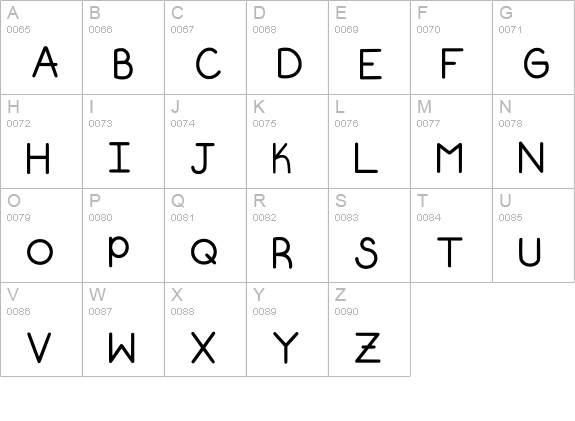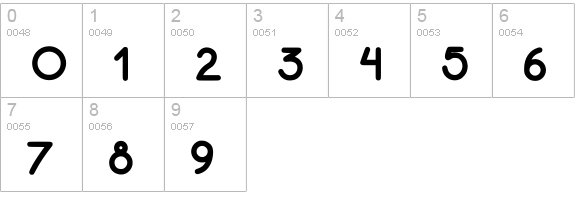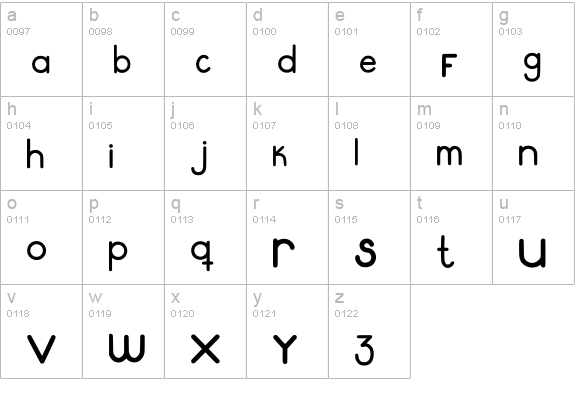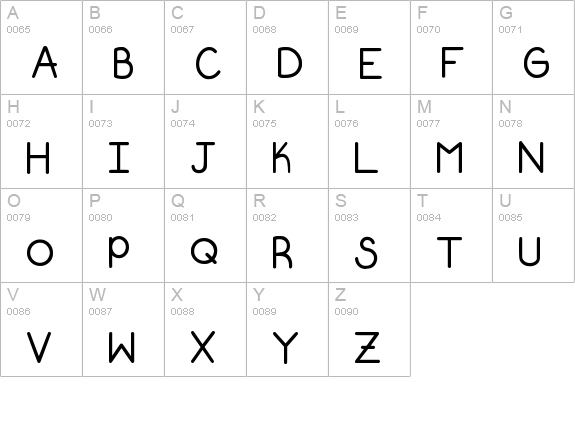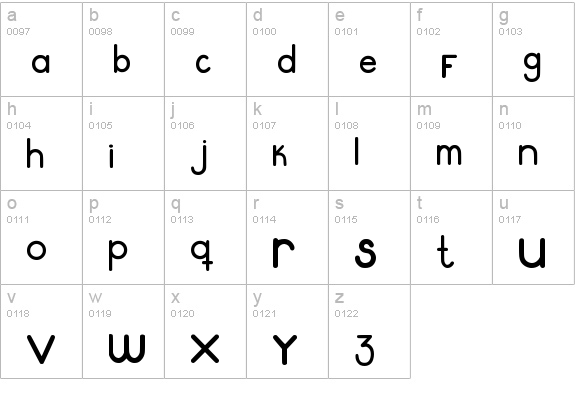
Happines Font Details
Introducing Happines Font, a delightful and charming typeface that exudes joy and warmth with its playful design. This unique font is perfect for adding a touch of happiness to your projects, whether it's for greeting cards, invitations, posters, or branding materials.
Happines Font is not only visually appealing but also versatile, making it suitable for a wide range of design applications. Its whimsical and friendly appearance is sure to bring a smile to anyone who sees it.